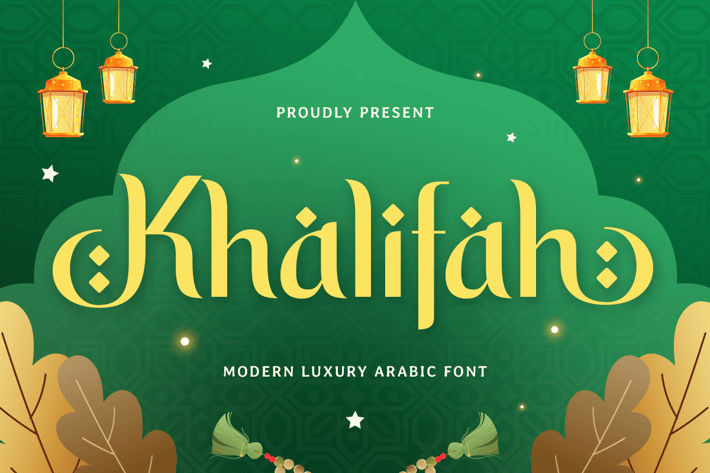
Khalifah - Modern Luxury Arabic Font
A Font Inspired by Leadership and Elegance
Khalifah is a modern luxury Arabic font inspired by the grandeur and cultural heritage of Islamic art. Its refined design captures the essence of sophistication and tradition, making it ideal for prestigious projects.
Versatile for High-End Arabic Creations
Perfect for branding, invitations, logos, and cultural designs, Khalifah elevates your projects with its luxurious style. Itβs designed for creators seeking to combine modern aesthetics with the richness of Arabic script.
A Harmony of Tradition and Modernity
Khalifah bridges the gap between classic Arabic calligraphy and contemporary design. Its elegant curves and attention to detail ensure that your work stands out as both timeless and innovative.
Khalifah Modern Luxury Arabic Font Features:
Alternates Characters Ready